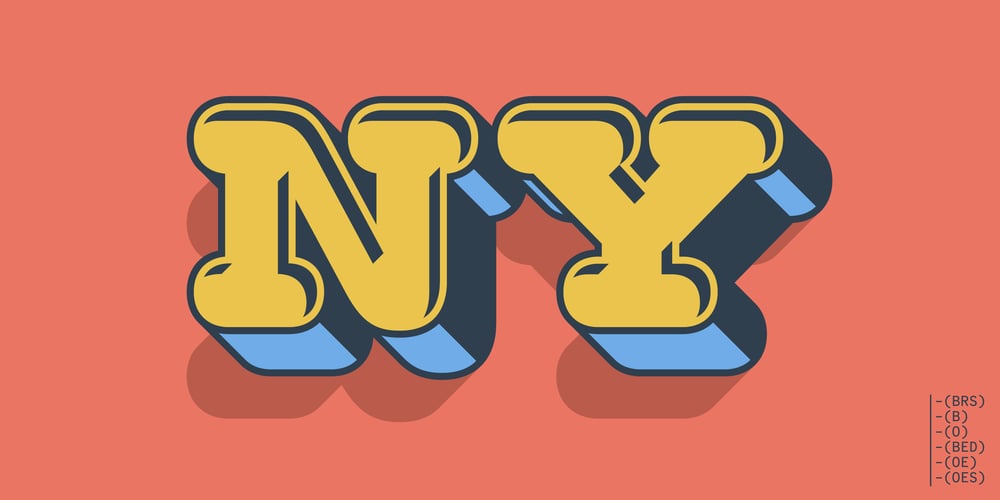
Dr Slab
Dr Slab font
Dr Slab Font Family was designed by Ryoichi Tsunekawa and published by Dharma Type. Dr Slab contains 1 styles and family package options. Extraordinary impact and visual conspicuousness. Dr Slab is a super 3D serif family for posters, logos and all display. The basic idea is not a brand new. Stacking type system have been used since before wood type age. As you imagined, colored wood type(woodcut), many other engravings and contemporary printer machine print many colors separately with different printing plates for each colors. Dr Slab uses the same system for 3d effect. Please use Photoshop or Illustrator, or your favorite graphic design apps that can handle layers. Layers are the printing plates of wood type. You should be able to change text color for each layers. Dr Slab “Base” style is the core of this font family. You can add effects by using the other styles(Rim, Shadow, Ext). Instruction 1. Type your text as you like. 2. Set font-name “Dr Slab” and font-style “Base” 3. Set color for “Base”. 4. Duplicate the layer which includes “Base” text. 5. Set font-style and color for new layers. 6. Stacked layers in different font-style and color make the text in 3D. For further detail, https://www.dropbox.com/s/9p9083zv2855bcq/DrSlab.pdf Dr Slab “Base” style can be used solely. Rounded slabs add soft, cute and casual impressions to your design. Spec: OpenType Format (.otf) with over 500 glyphs! Basic Latin ✓ Western Europe ✓ Central Europe ✓ South Eastern Europe ✓ Mac Roman ✓ Windows 1252 ✓ Adobe Latin 1 ✓ Adobe Latin 2 ✓ Adobe Latin 3 ✓ Almost all Latins are covered.